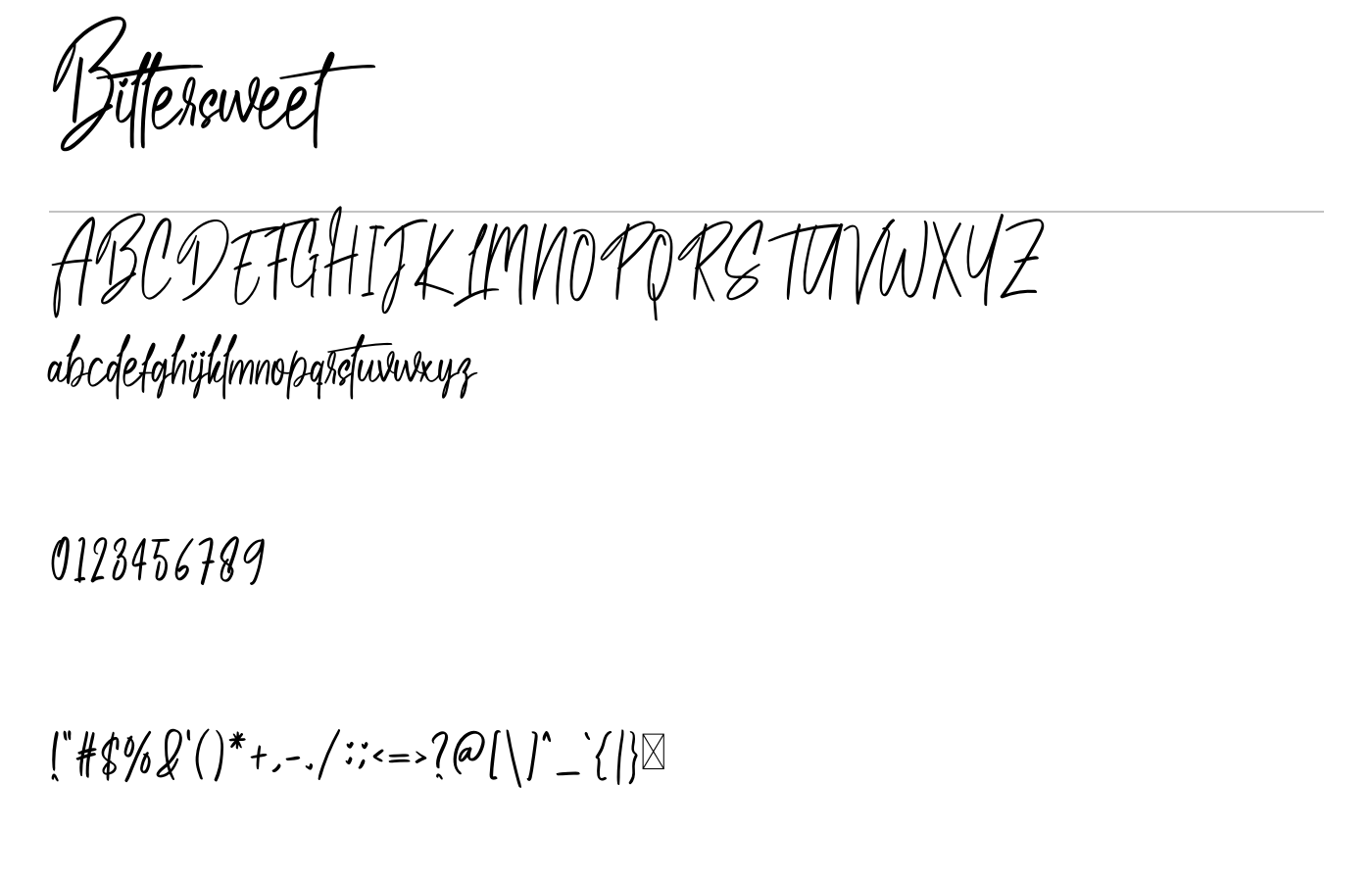
Bittersweet is a slender, casual handwritten script font with a lively and informal style. Its tall, narrow letterforms and irregular strokes create an energetic, personal feel that works well for creative branding, invitations, and projects needing a genuine, handcrafted touch. Ideal for eye-catching headlines or logos, it adds a playful yet elegant vibe that communicates warmth and individuality.
Bittersweet Font
About Bittersweet Font